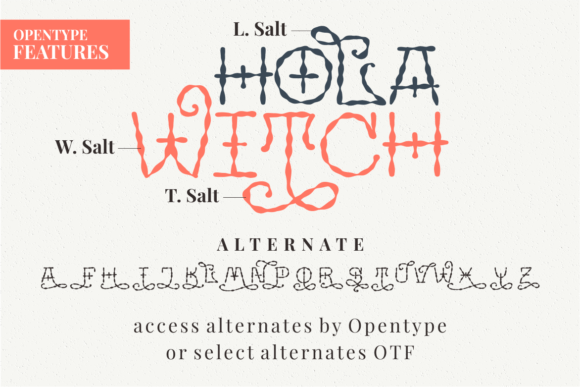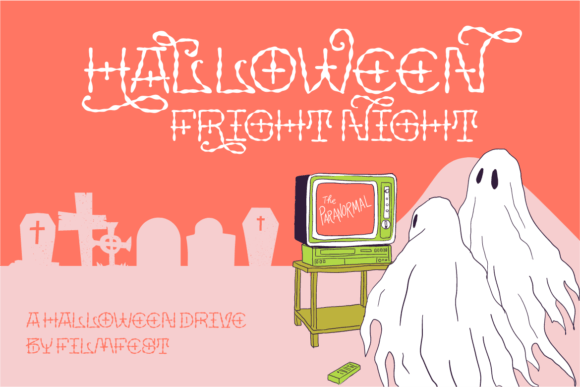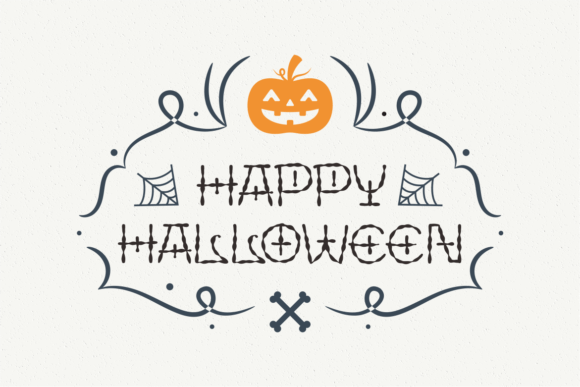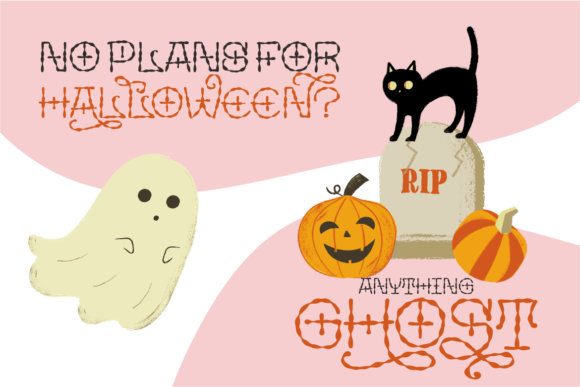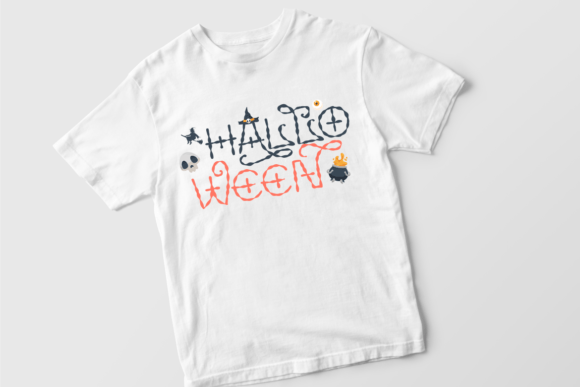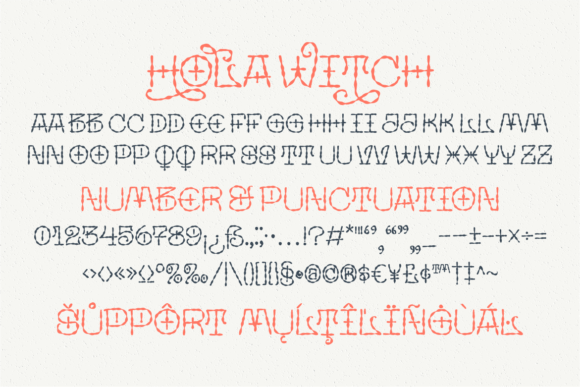
Introduction to Hola Witch Font
As the spooky season approaches, designers are on the hunt for the perfect font to cast a spell on their creative projects. It’s that one moment when you’re brainstorming ideas for a Halloween-themed campaign or designing a haunted house flyer, and you just can’t find the right font to match your eerie vision. Well, look no further, because Hola Witch Font is here to save the day!
This high-quality font is a game-changer for designers looking for a unique and stylish design resource. With its whimsical and mysterious vibe, Hola Witch Font is perfect for all your creative projects, from horror-themed posters to spooky social media graphics. And the best part? It’s a free download, making it an accessible design resource for designers of all levels.
With its PUA encoded features, you can easily access all the glyphs and swashes, making it a breeze to customize and personalize your designs. Whether you’re working on a commercial project or a personal creative endeavor, Hola Witch Font is a valuable addition to your design arsenal.
Key Features of Hola Witch Font
- High-quality design resource perfect for creative projects
- Includes 1 unique font style with 6 variations in different weights and styles
- Unique characteristics: Hand-drawn, whimsical, and mystical design elements
- Perfect for various creative projects, including graphic design, digital art, and print materials
Honest Review: Hola Witch Font
I recently had the opportunity to work with the Hola Witch Font, and I must say it’s been a delightful addition to my design resource library. As a designer, I’m always on the lookout for high-quality fonts that can elevate my creative projects. The Hola Witch Font is a unique and charming addition to any design.
Here are some things that work well with this font: ✨
- Its playful and whimsical feel makes it perfect for projects that require a touch of magic.
- The transparent background makes it easy to overlay on top of images and other design elements.
- The font may not be suitable for formal or professional projects, as its playful feel may not be taken seriously.
- The font’s unique design may not be to everyone’s taste, so it’s essential to test it in different contexts before committing to a project.
Overall, I’m impressed with the Hola Witch Font, and I think it’s a valuable addition to any designer’s library. Its high-quality design and transparent background make it a great choice for creative projects that require a touch of magic.
Hola Witch Font
The Hola Witch Font is perfect for:
- Crafting invitations and party decor
- Designing social media graphics and posts
- Creating logos and branding materials
- Adding a touch of whimsy to presentations and documents